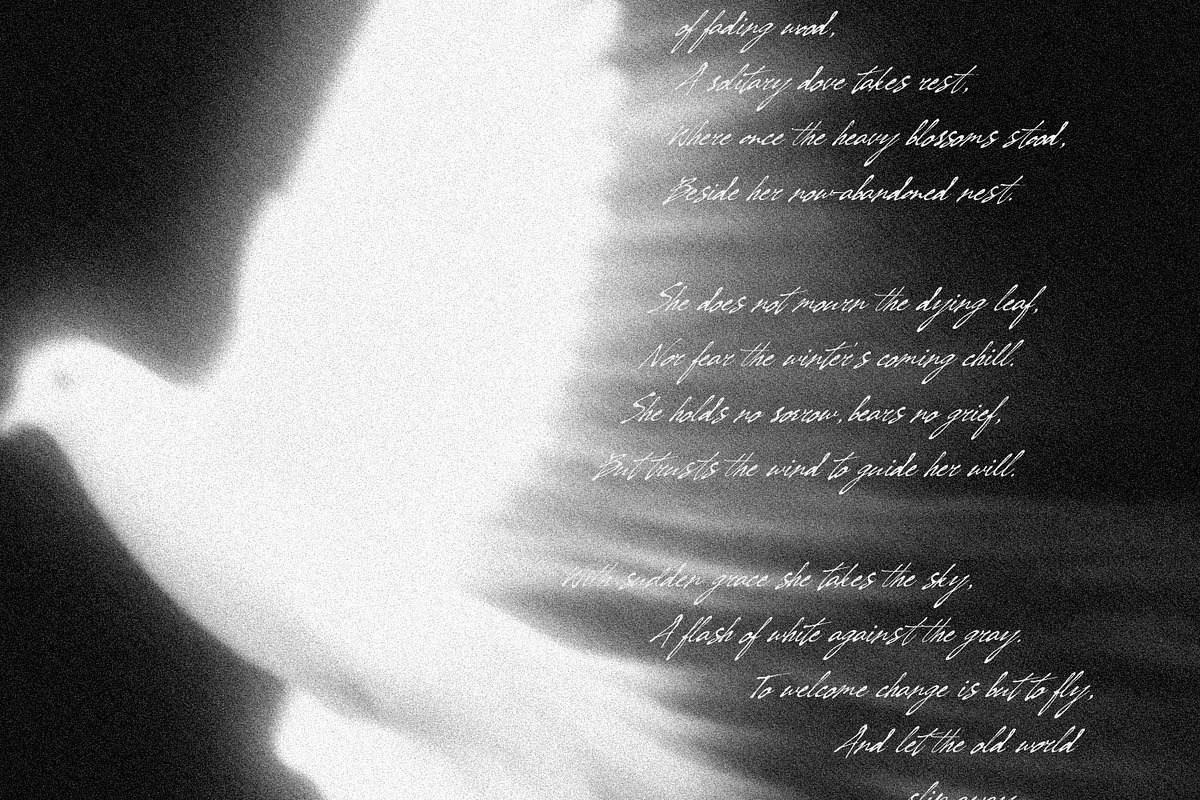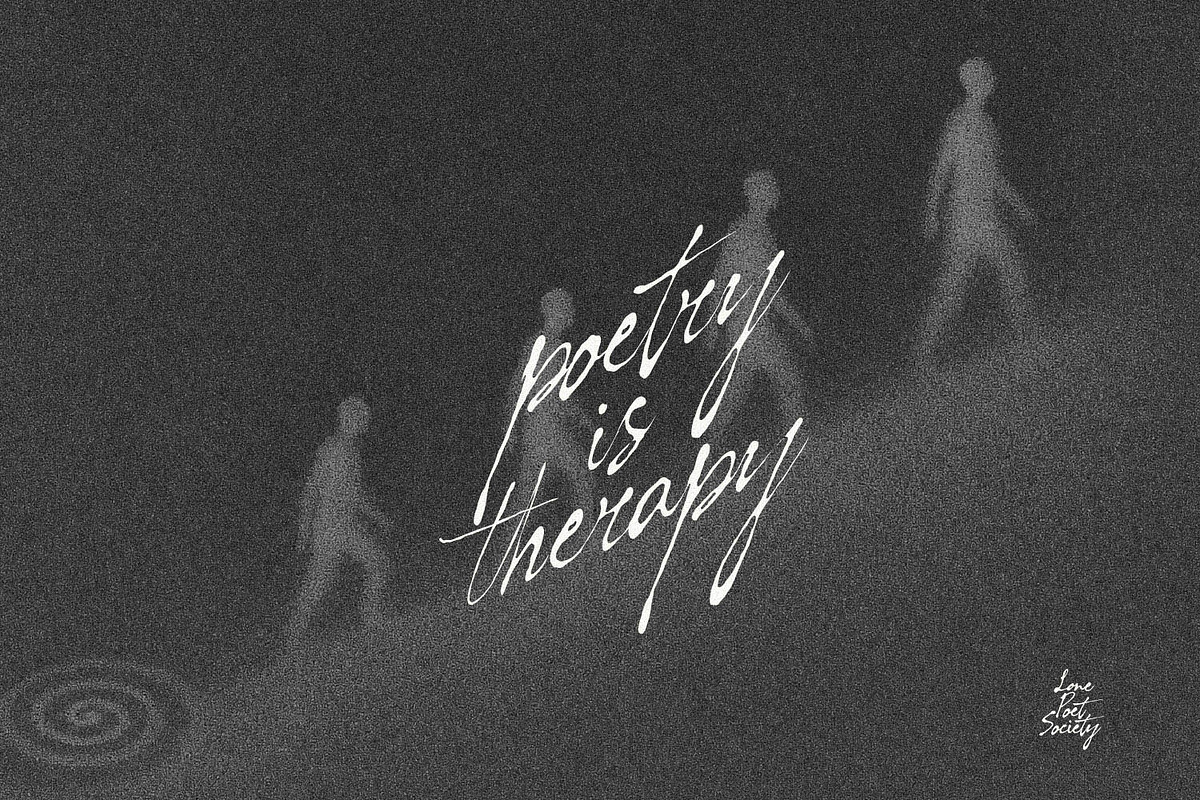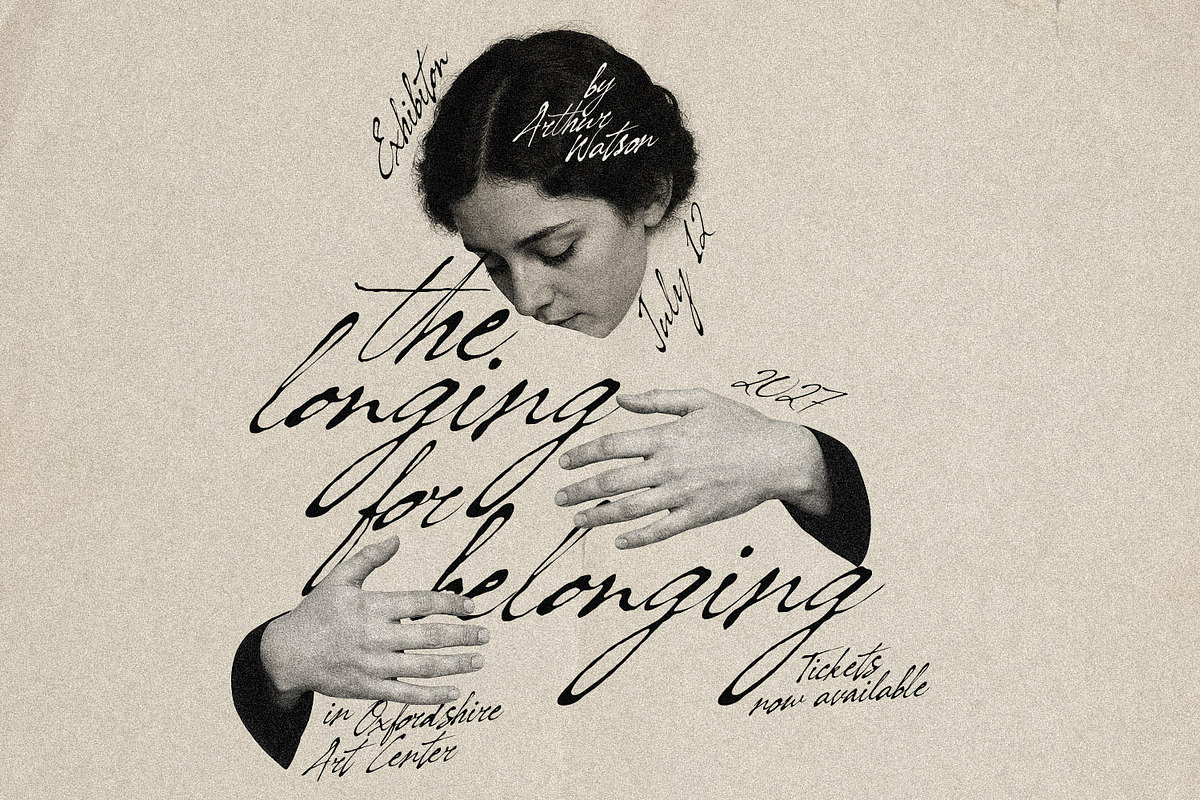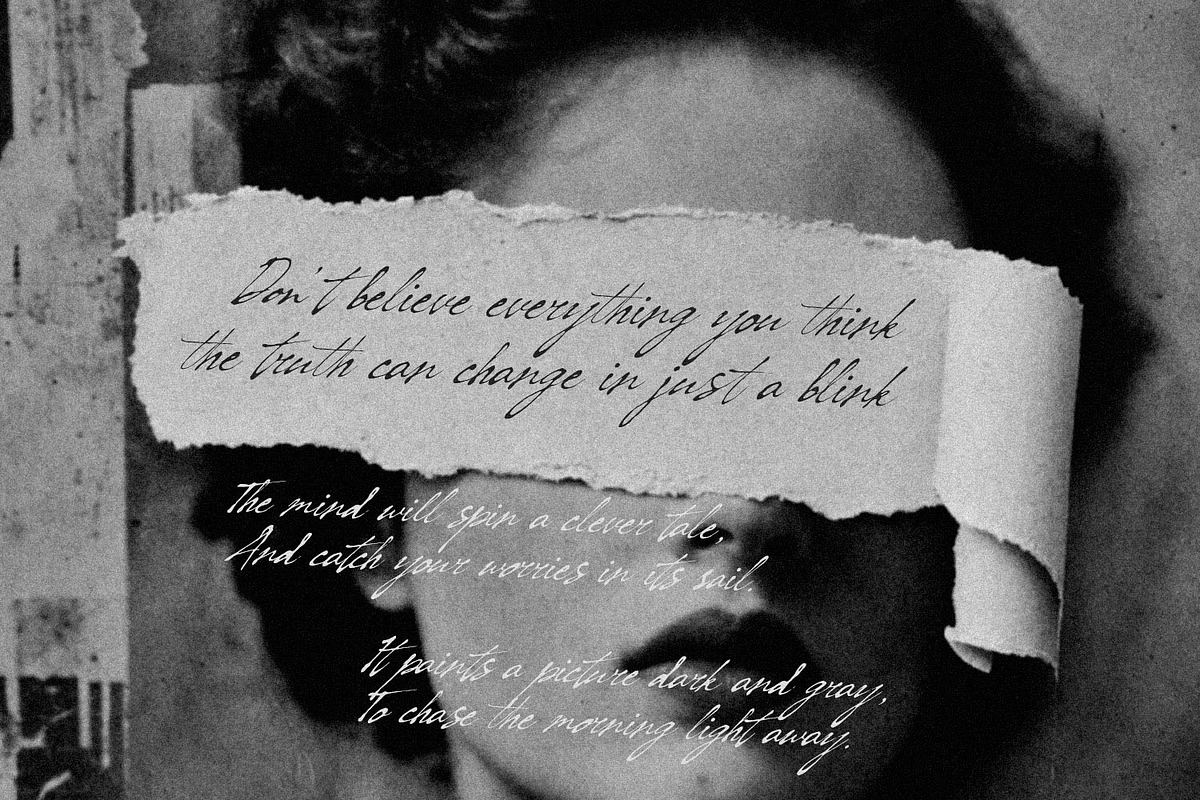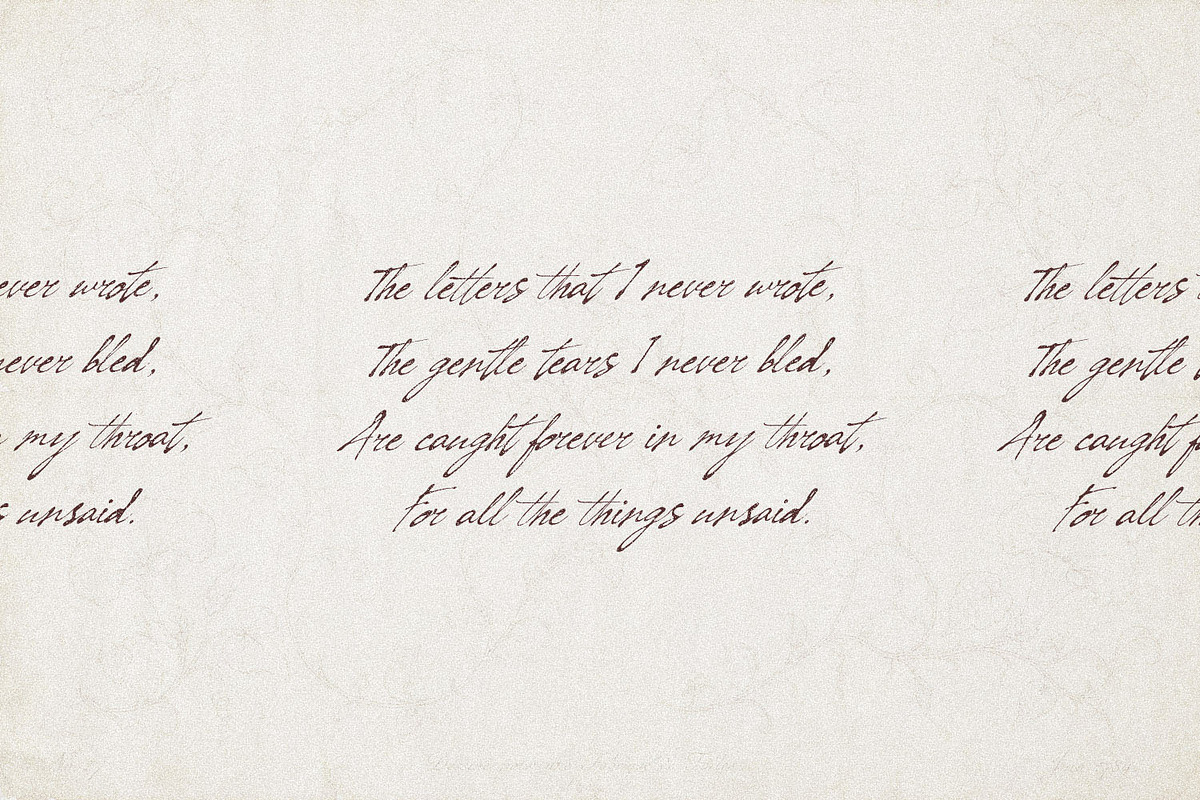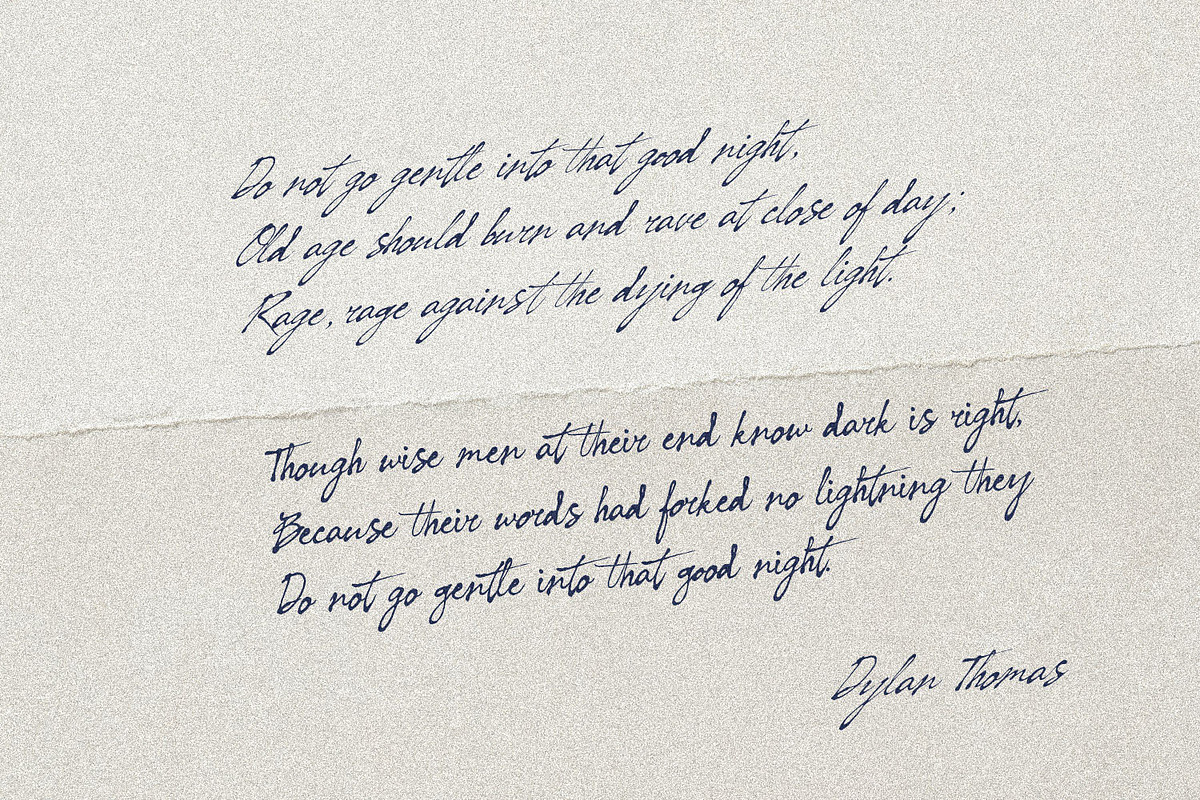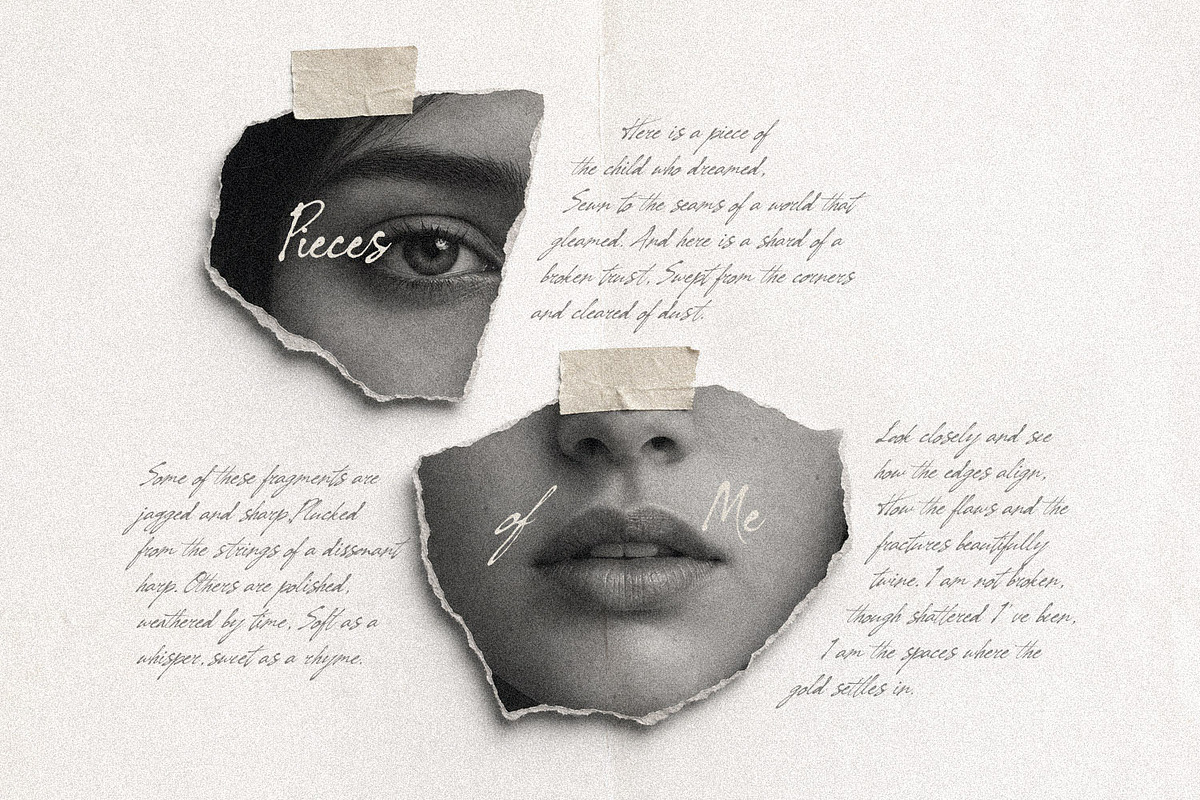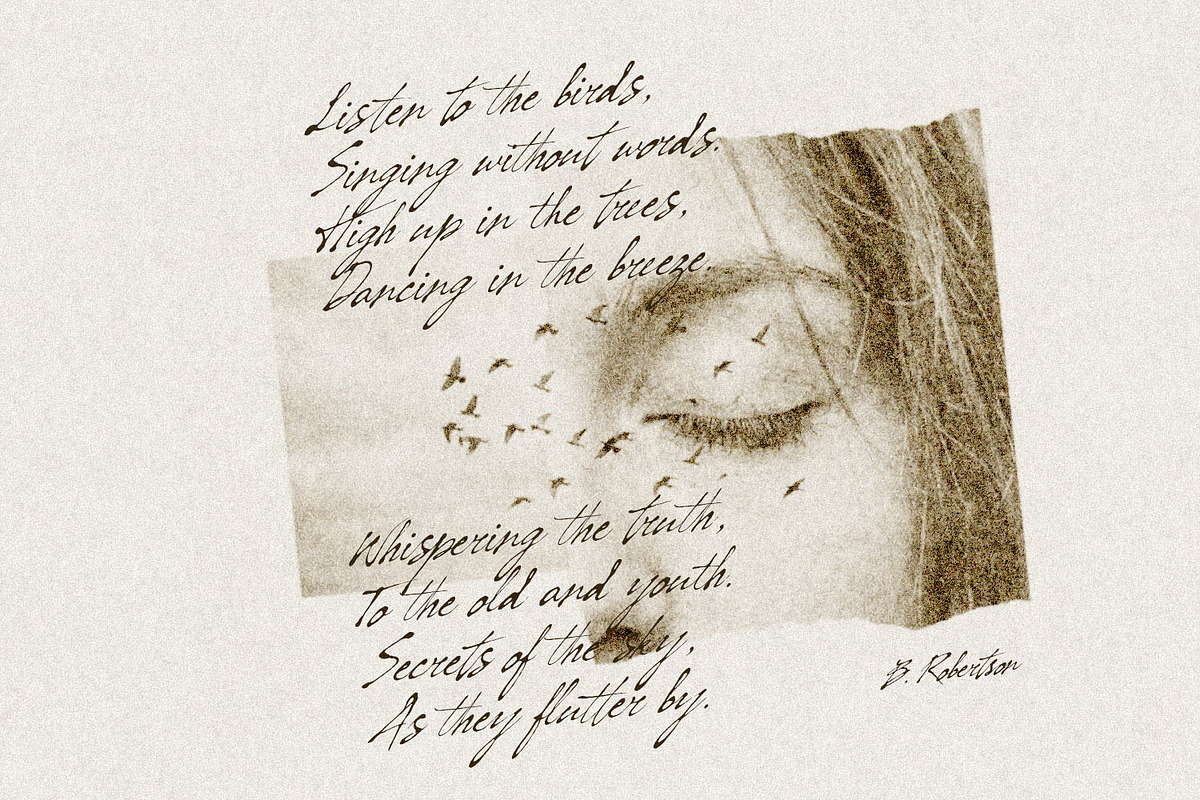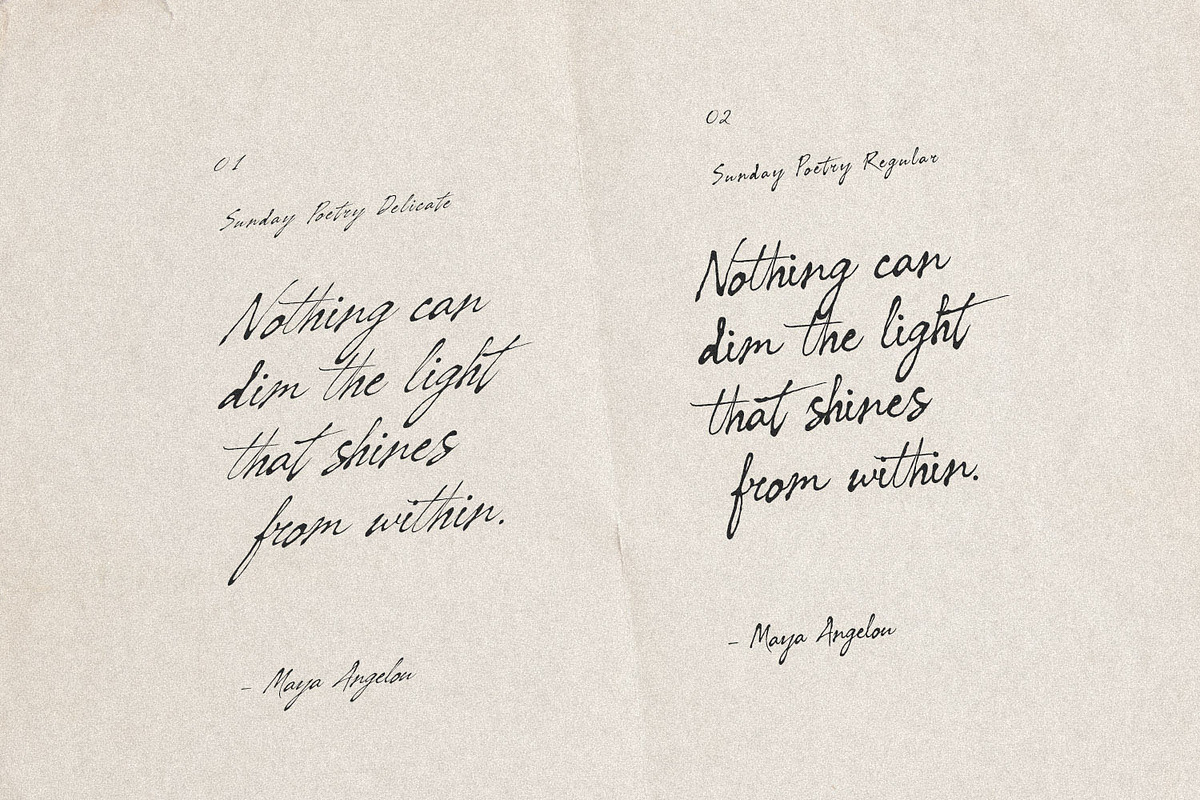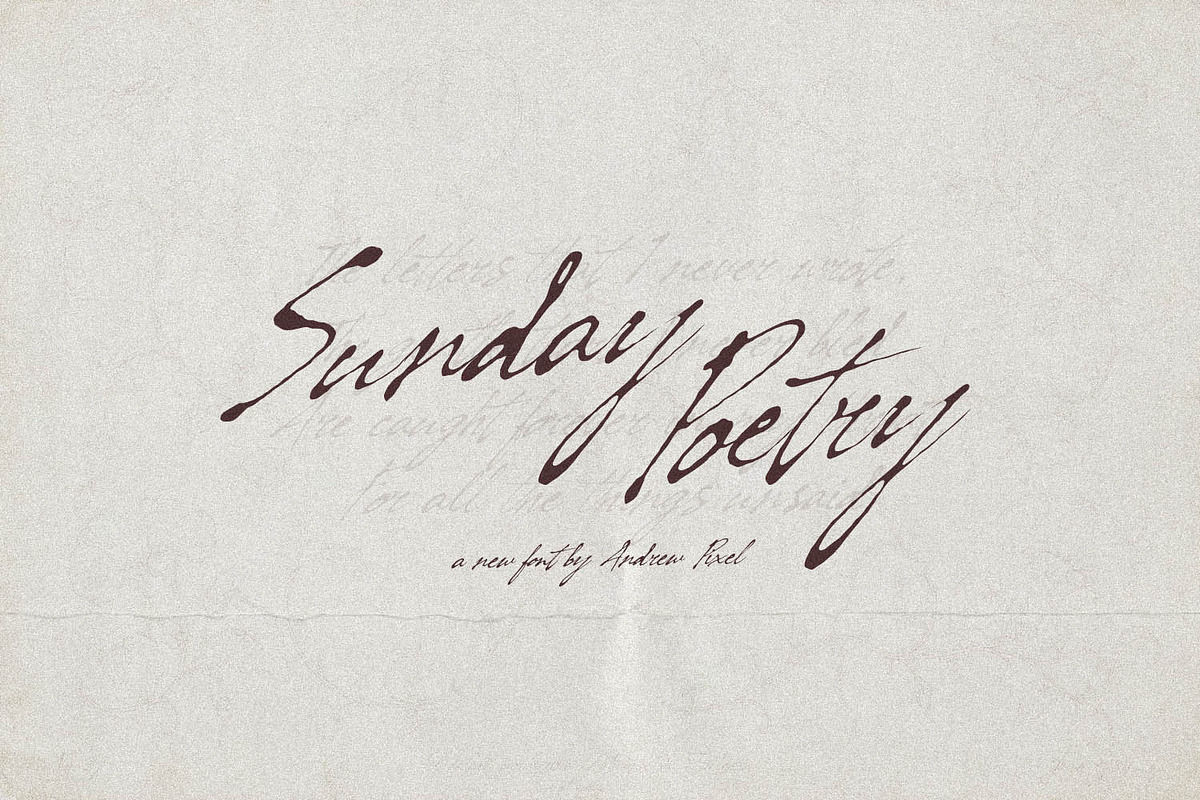
Sunday Poetry - Handwritten Script
Some fonts are typed. This one feels written.
Sunday Poetry is a handwritten script font duo inspired by old letters, quiet mornings, and the kind of poetry you scribble in the margins of a notebook. It comes in two moods:
Sunday Poetry Regular — more upright, a little more composed. Like handwriting when you're taking your time, sipping your coffee, choosing your words carefully.
Sunday Poetry Delicate — thinner, more slanted, a bit rushed. Like you had to get the thought down before it slipped away. Think hurried love letters..
Together, they pair beautifully — use Regular for headlines and Delicate for the smaller, softer details (or the other way around).
Wedding invitations, save-the-dates & envelope addressing
Poetry books, chapbooks & literary blog headers
Journal covers, planners & stationery
Quote prints & wall art
Candle labels, perfume packaging & anything a little romantic
Instagram posts & Pinterest graphics
Book covers
Branding for photographers, florists, writers & dreamy small businesses
Tea packaging, café menus & handwritten-style logos